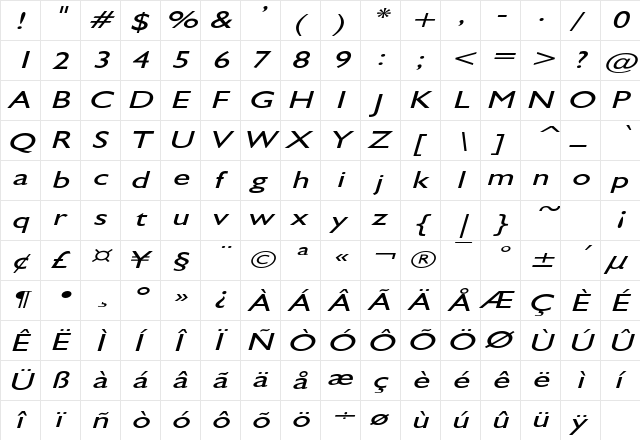
GibraltarExtended Italic
Design Context for GibraltarExtended Typeface
GibraltarExtended offers clean, dependable letterforms without strong stylistic allegiance, making it a practical choice for designers who need flexibility. The dynamic lean of this cut emphasises speed and emphasis in any layout.
Pro Tip: Use GibraltarExtended for emphasis, pull quotes, and subheadings where its slanted energy can add rhythm to the layout.